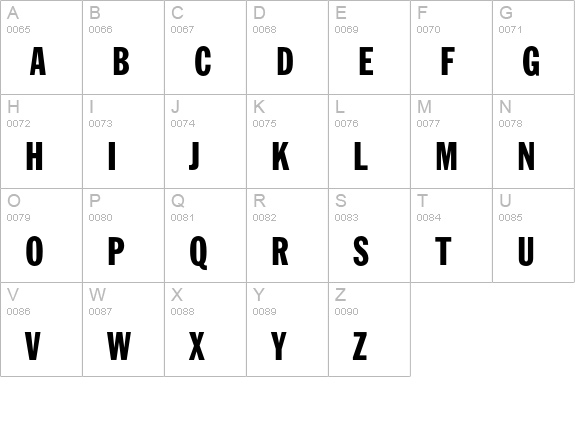
Franklin Gothic ATF Extra Condensed is a distinctive, condensed-width variant in the Franklin typeface family \xE2\x80\x94 well suited to design and typography projects.
Franklin Gothic ATF Extra Condensed font is a sleek and modern typeface that exudes sophistication and elegance. Its condensed style makes it perfect for creating impactful headlines and striking designs. This versatile font is ideal for a wide range of projects, from branding to editorial design. Best of all, Franklin Gothic ATF Extra Condensed font is available for free download at FontsMarket.com. With its clean lines and bold presence, this font is sure to make a statement in any design project. Whether you're designing a poster, flyer, or website, Franklin Gothic ATF Extra Condensed font will add a touch of class and style to your work.